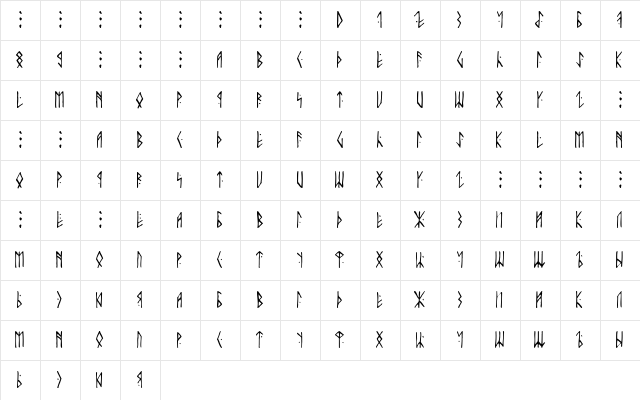
Runic AltNo Regular
| Designer | Dmitry Dervenjov (drawing) & Nikolay Dubina (created) |
Design Context for Runic AltNo Typeface
Runic AltNo is a composed and adaptable typeface that performs quietly and consistently across a wide range of design contexts.